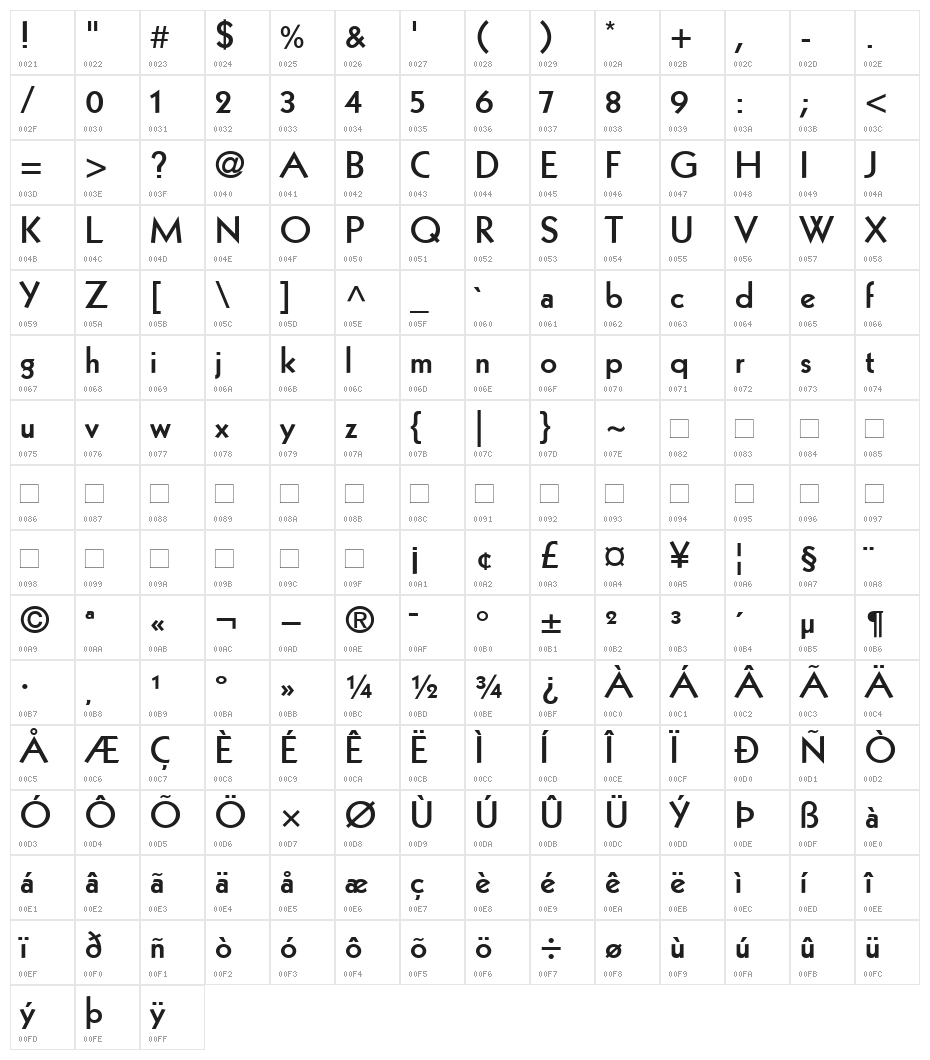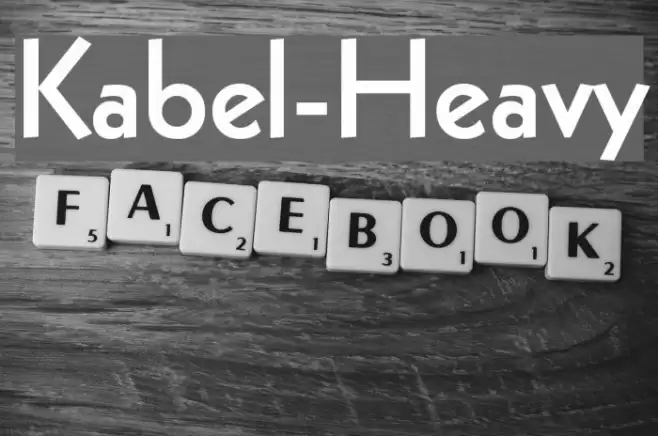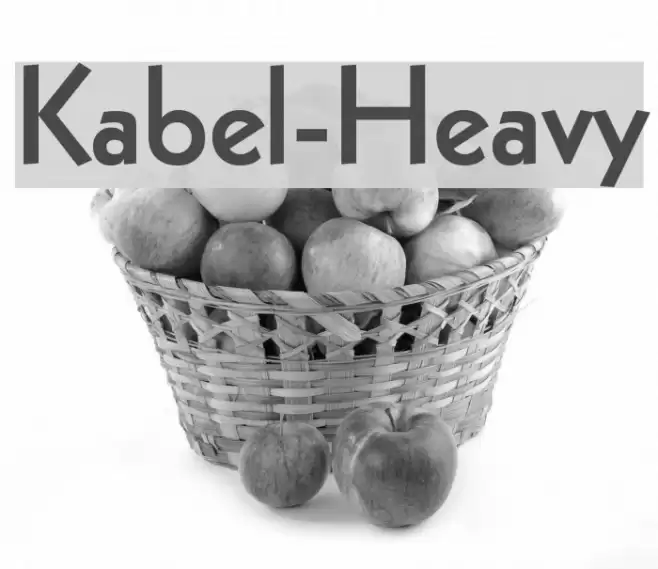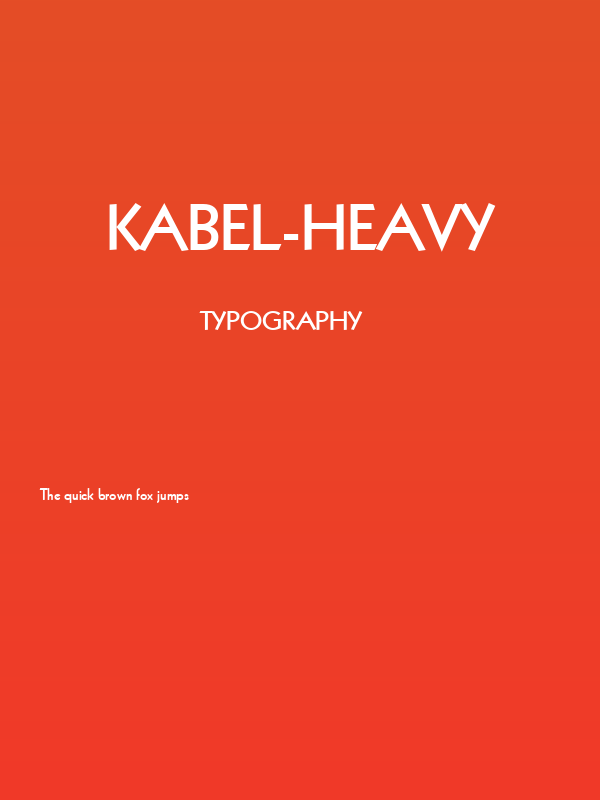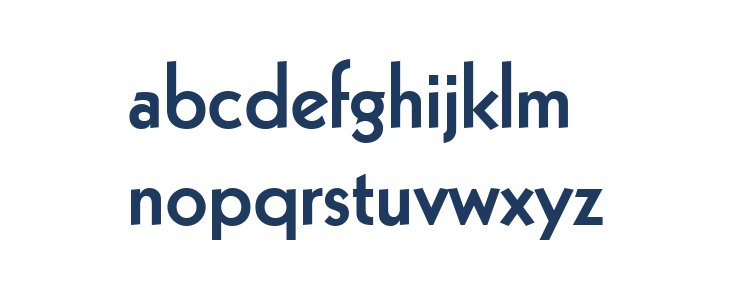
Kabel-Heavy Font
Kabel-Heavy Description
This font features a geometric sans-serif style with clean, straight lines and a bold presence. The characters are well-defined with a uniform stroke width, giving it a modern and robust appearance. The uppercase letters are tall and commanding, while the lowercase letters maintain a consistent height, enhancing readability. The numerals are clear and distinct, matching the overall boldness of the font. Special characters are designed with the same geometric precision, making them easily recognizable and functional.
| Proposed Projects | Ideal for branding, advertising, headlines, and any project requiring a strong, modern typeface. |